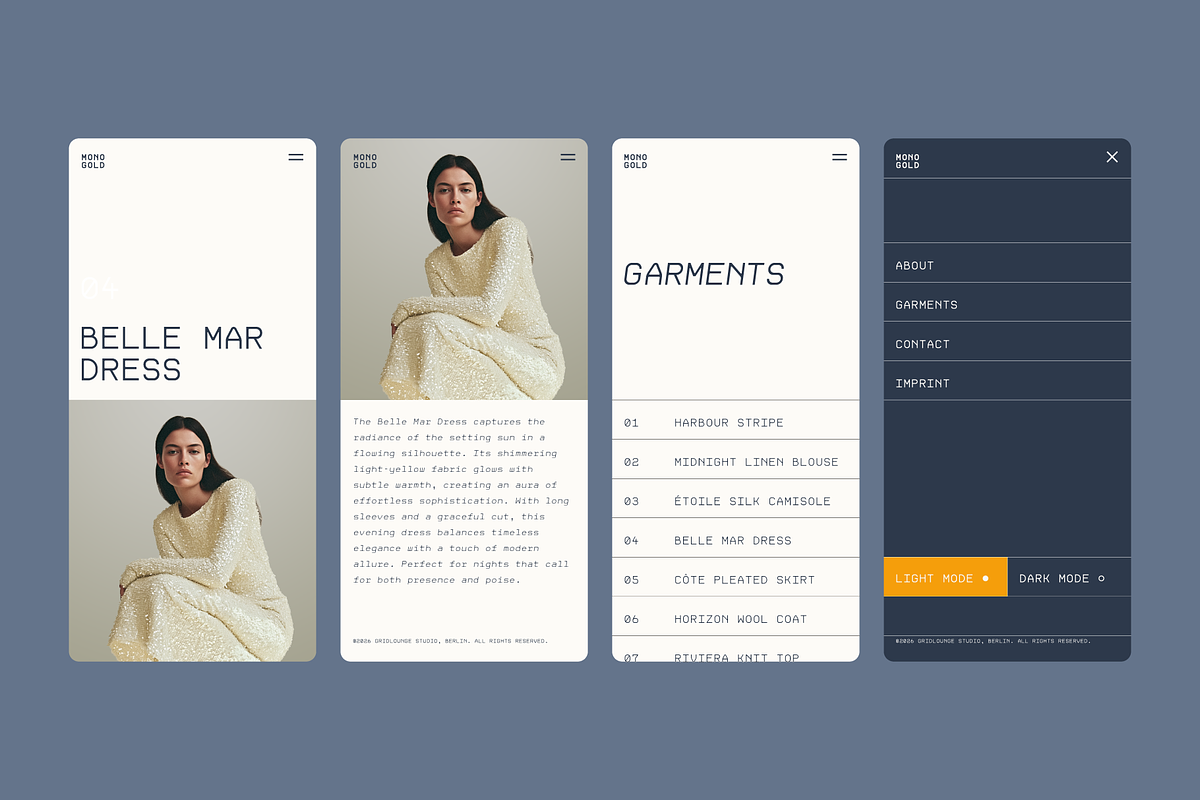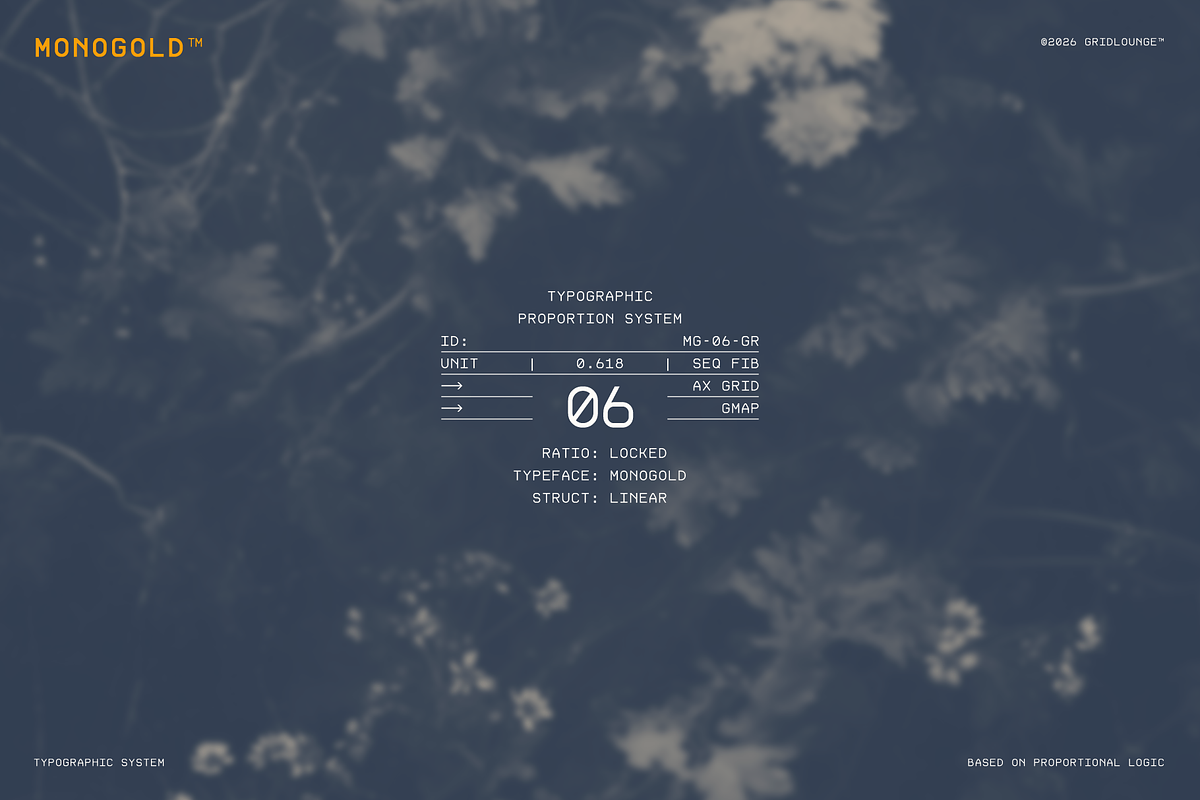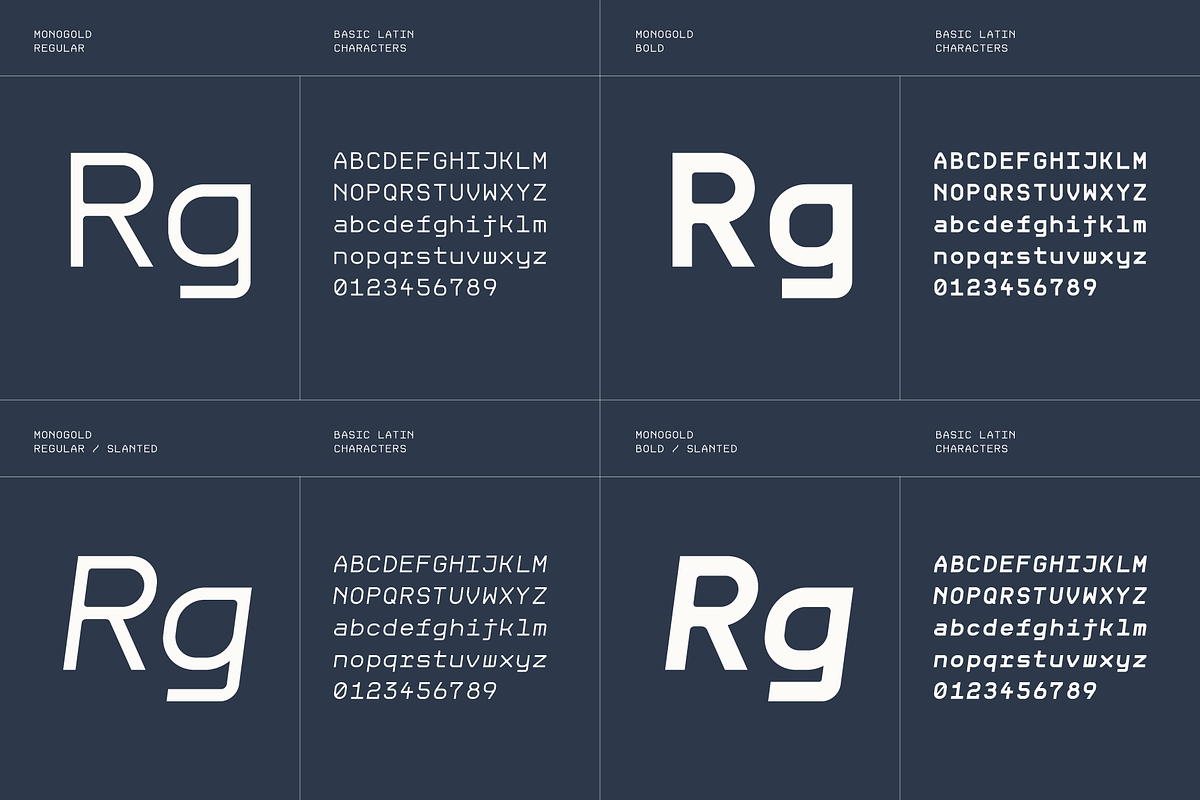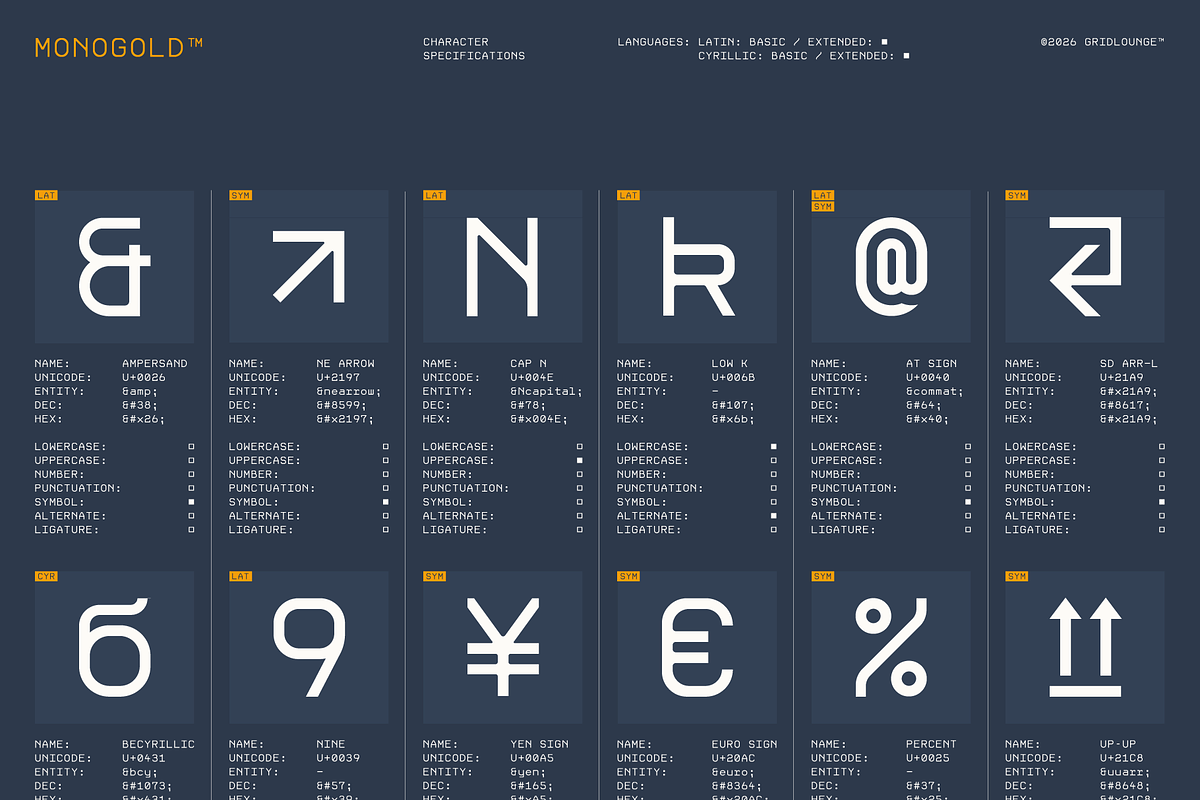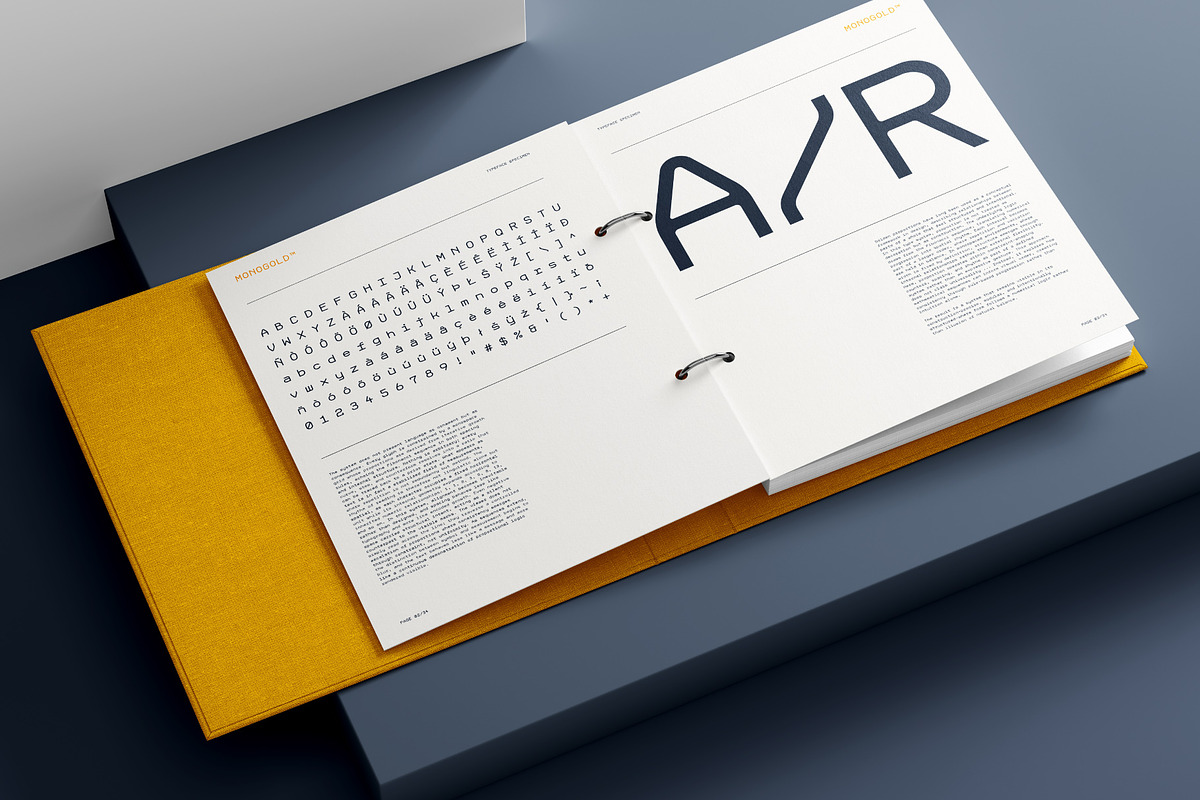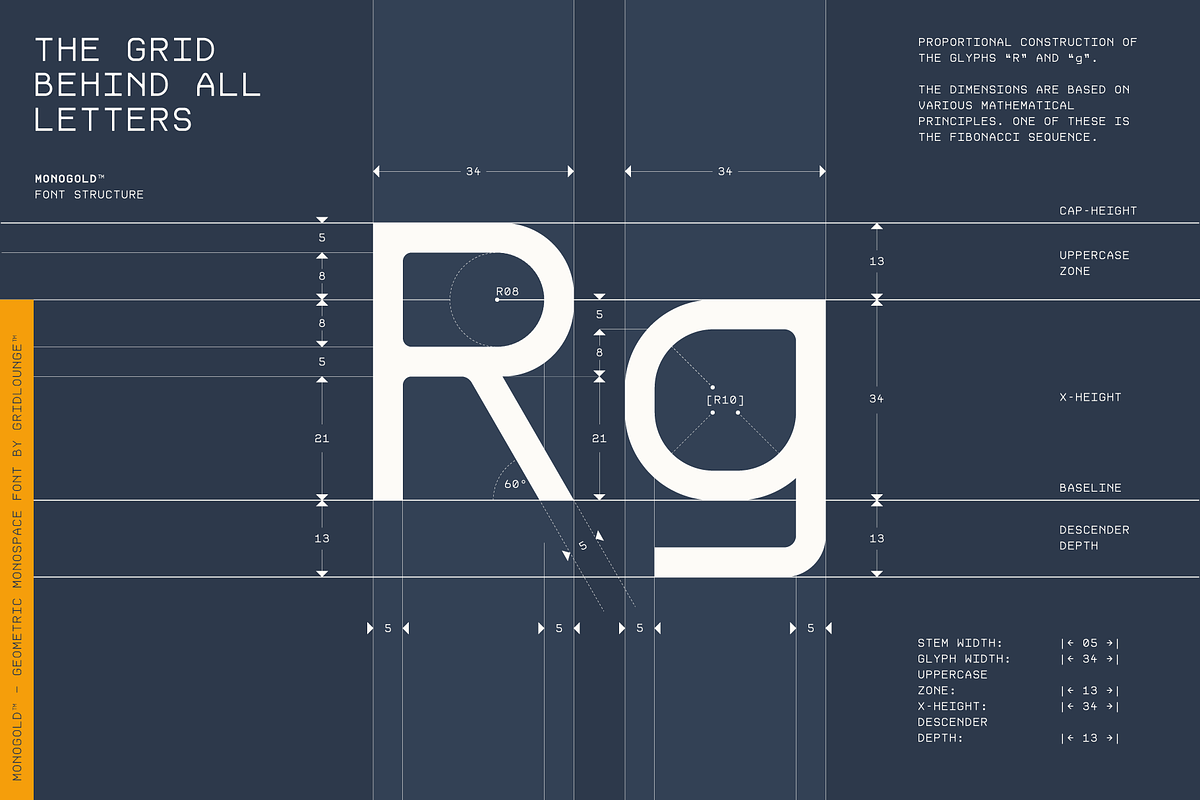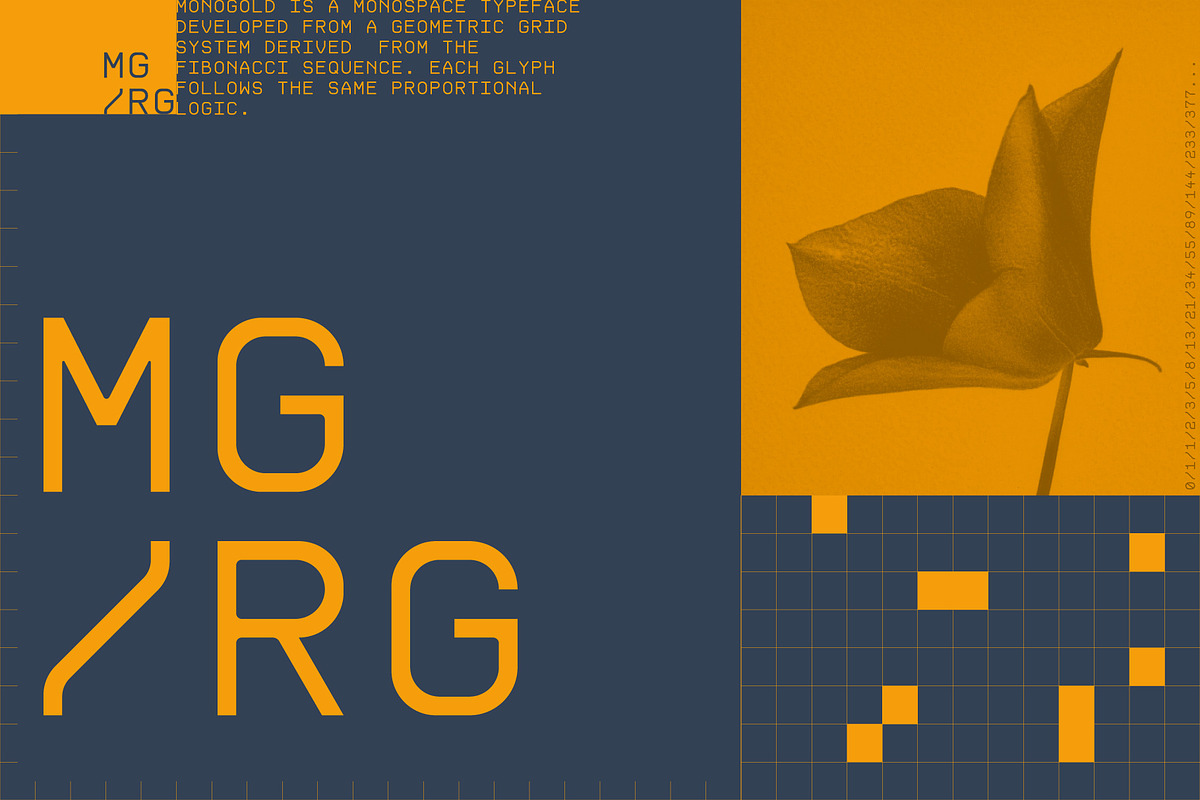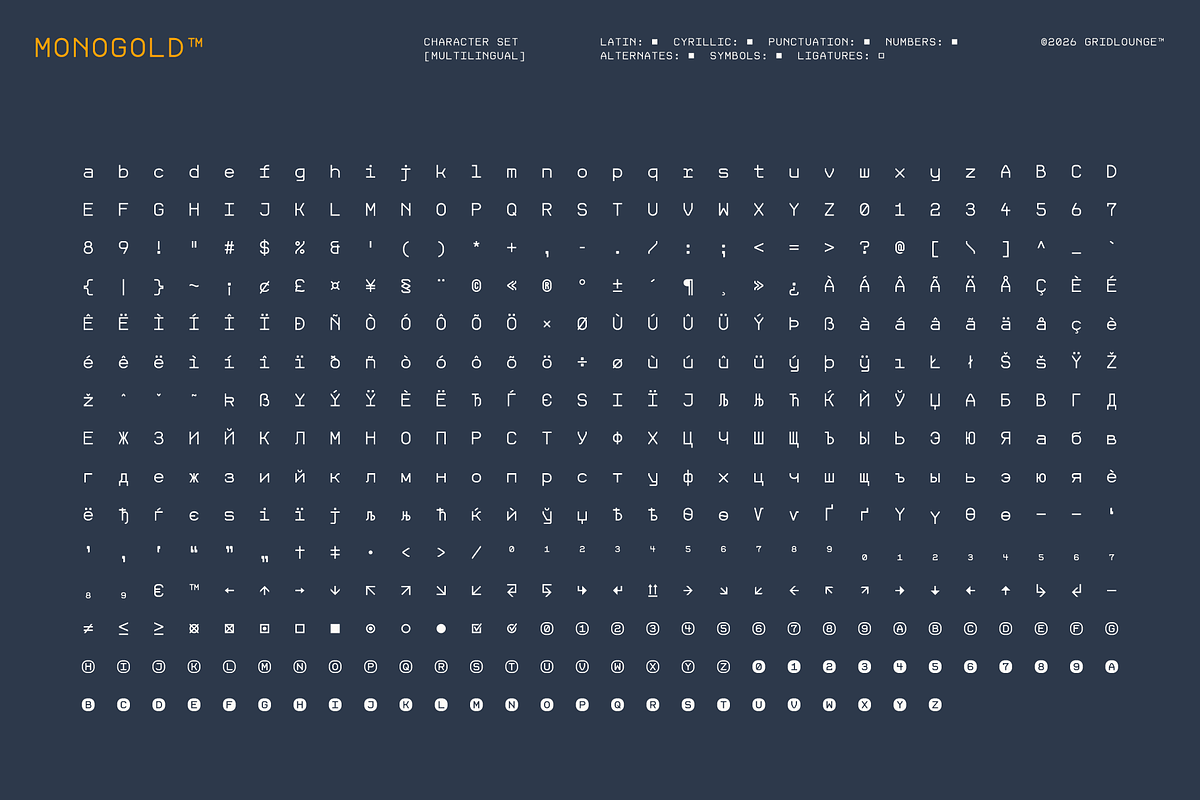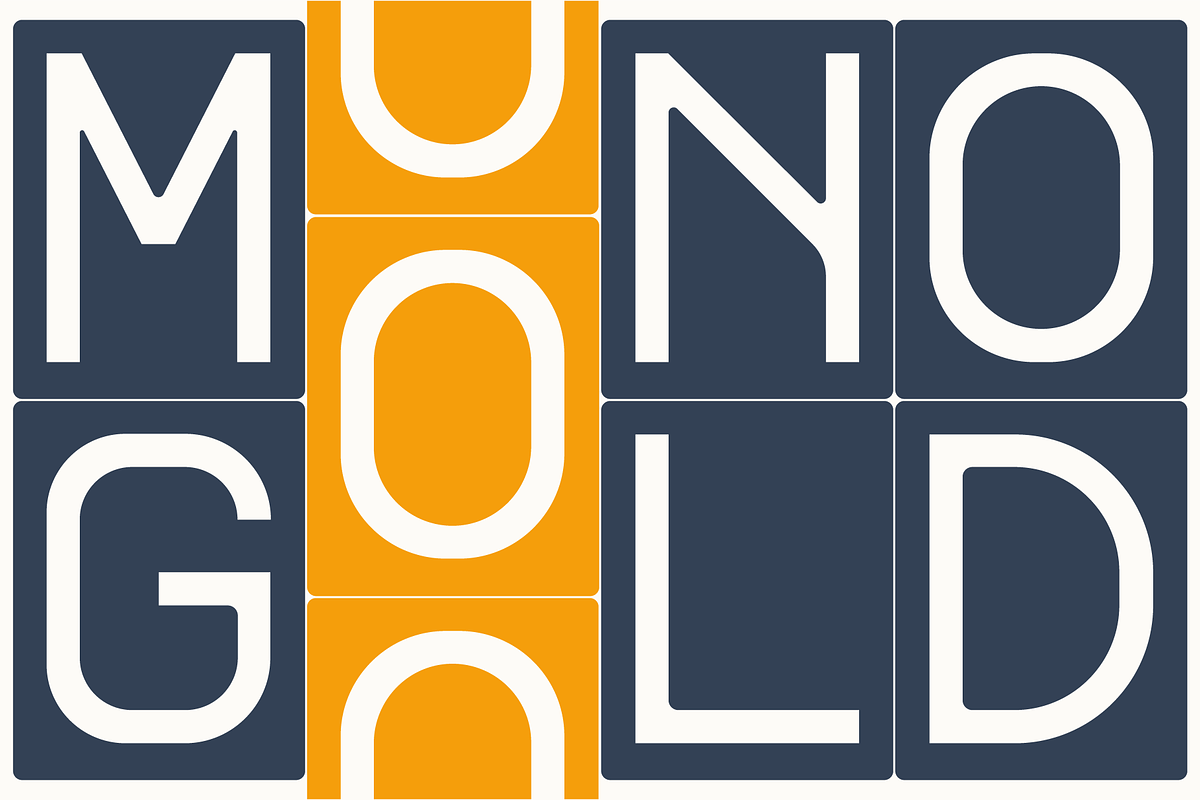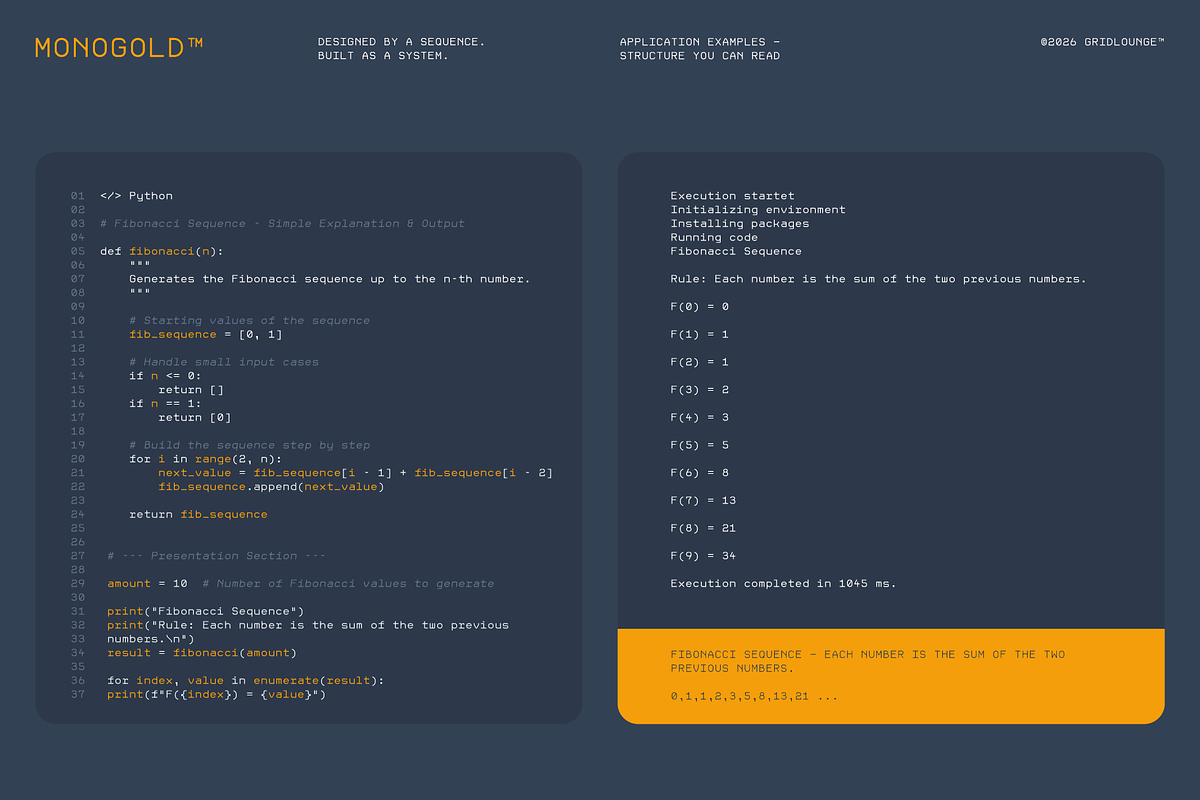
Monogold – Fibonacci Monospace
Monogold is a typographic system, not a decorative monospace.
Built on the proportions of the Fibonacci sequence, Monogold is a monospace typeface designed for structured thinking — where grids, ratios and geometry define the visual language.
Its construction creates a precise and modern rhythm, especially in headlines, editorial layouts, branding and number-heavy compositions.
With four styles (Regular, Slanted, Bold, Bold Slanted), Monogold functions as a complete display family for systematic design work.
Ideal for:
Branding & visual identities
Editorial & magazine design
Posters & large typography
Number-heavy layouts
Grid-based systems
Experimental design & packaging
If you work with structure, ratios and typographic systems, Monogold behaves less like a font and more like a design tool.